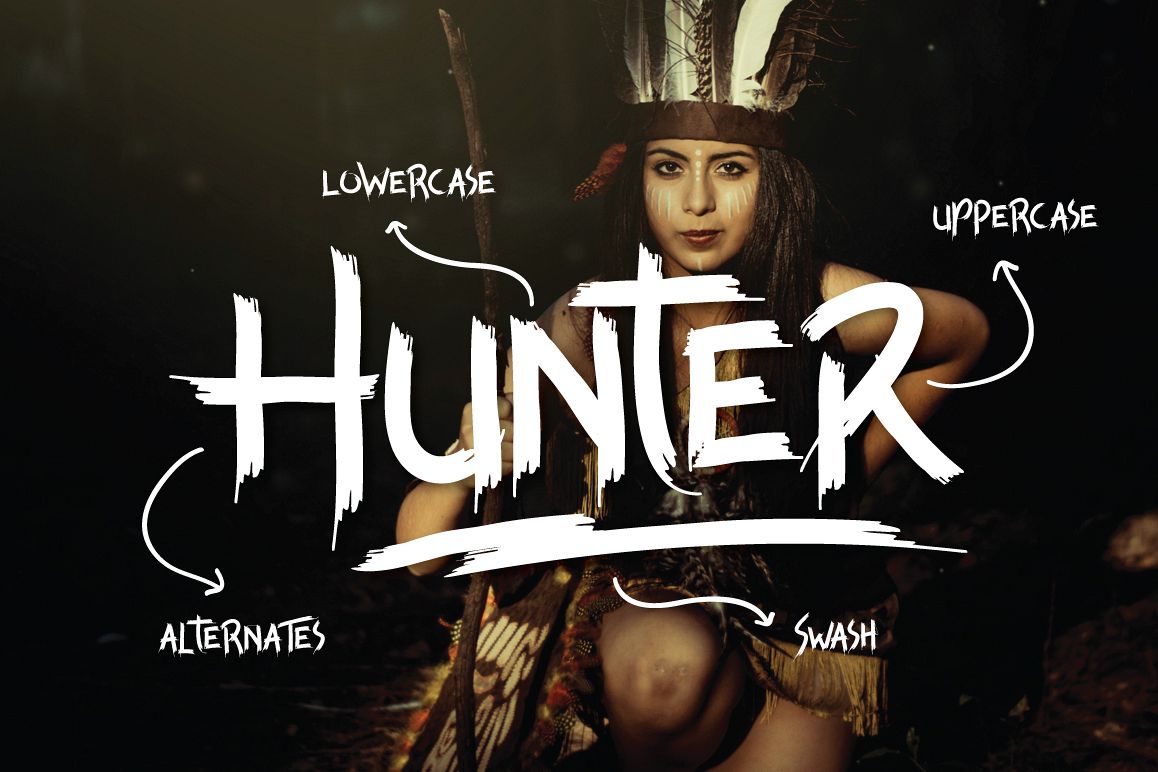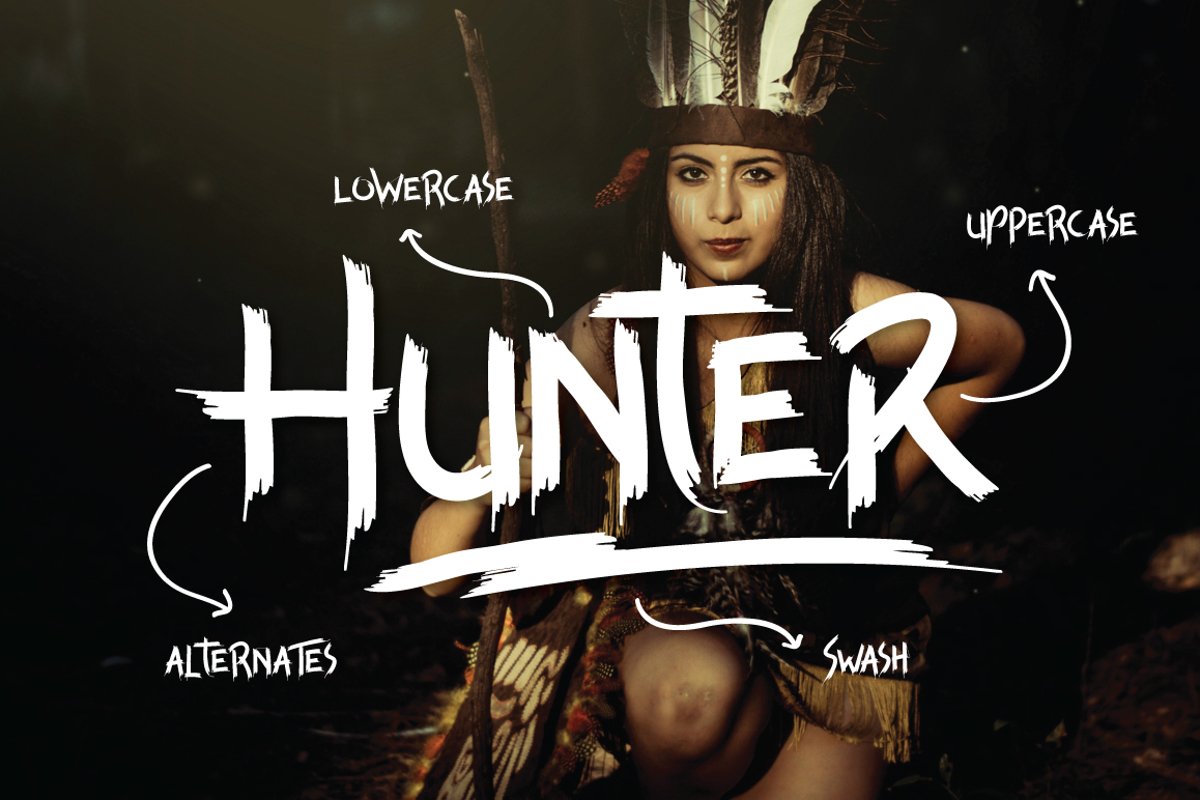
Hunter is a handmade brush font bursting with energy, quick strokes and
sharp edges. Hunter can be used for anything from promotional material and handwritten
quotes, to product packaging, labels, logo newsletters, posters, merchandise
and branding projects.